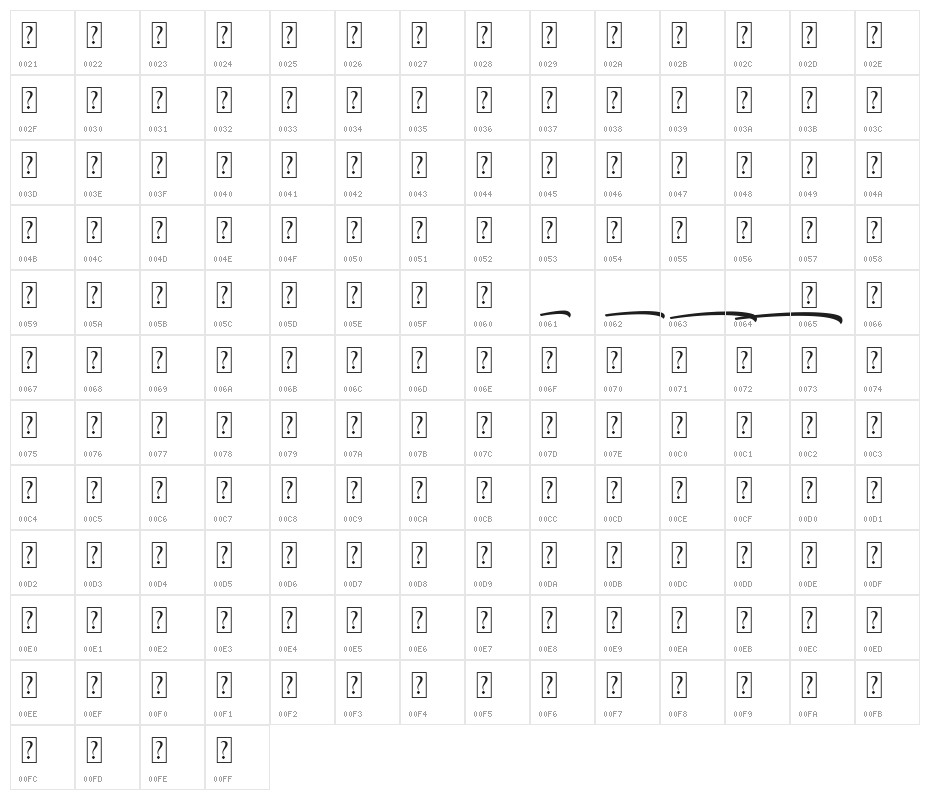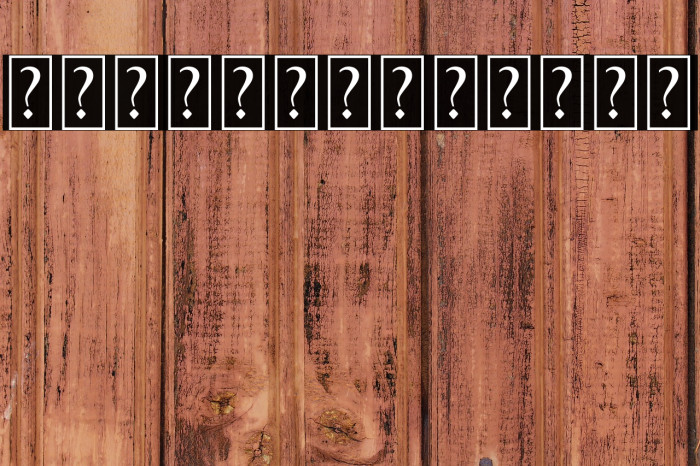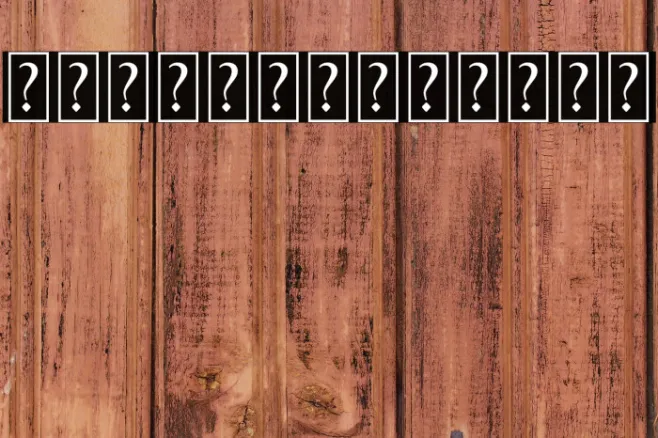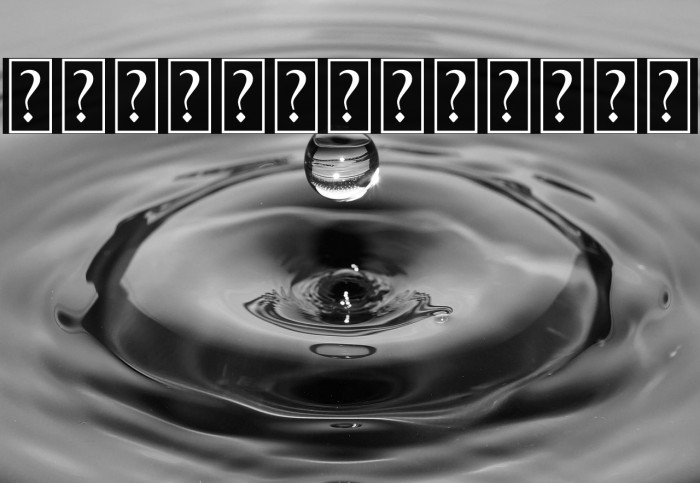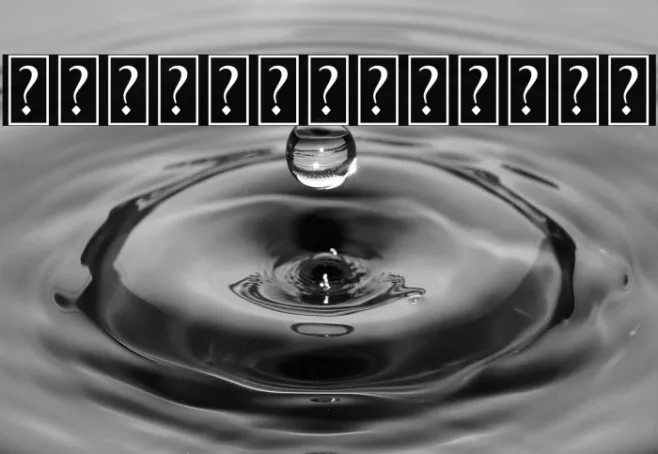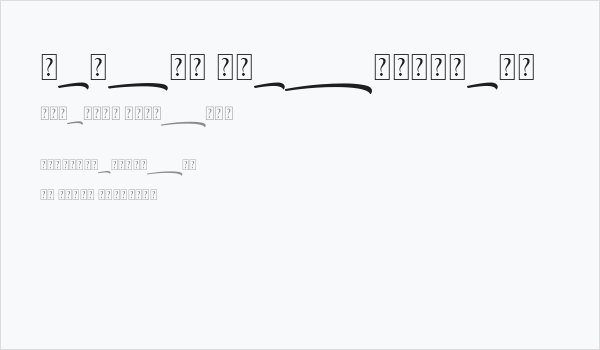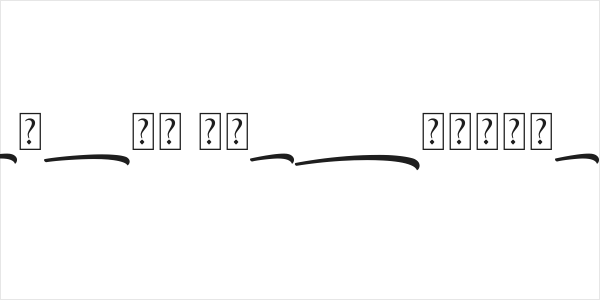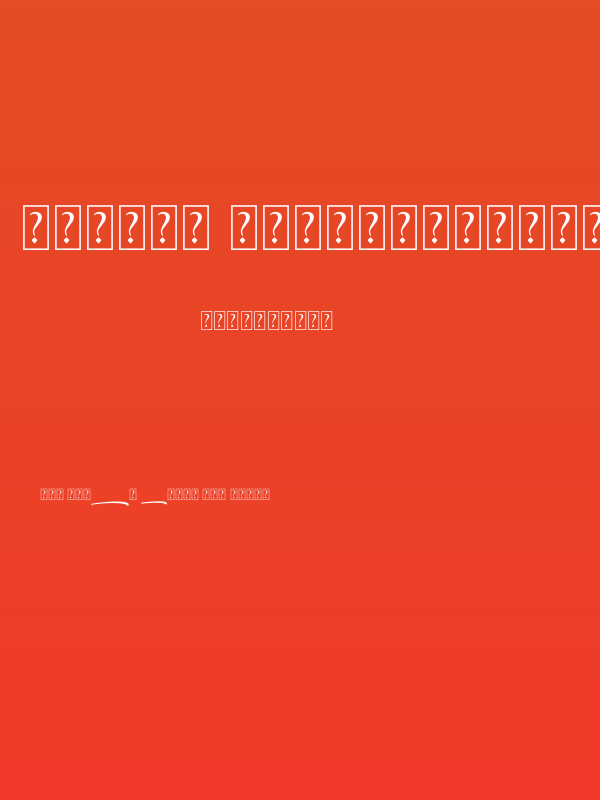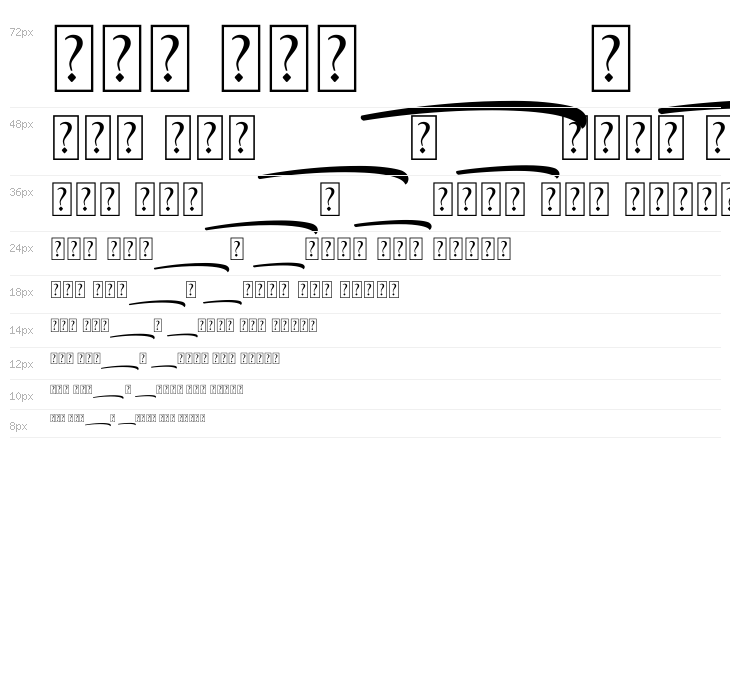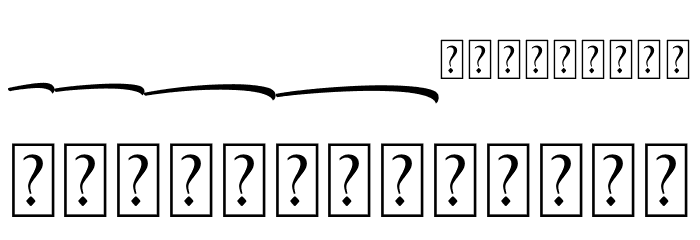
Samble Tracie_Swash Font
Samble Tracie_Swash Description
Elegant script font with prominent swash elements, featuring fluid, sweeping strokes and decorative flourishes on many characters. The letterforms are connected and expressive, with a calligraphic influence and high contrast between thick and thin lines.
Overall StyleDecorative, Elegant, Calligraphic
Use CaseLogos, Headlines, Invitations, Decorative text
Proposed ProjectsWedding invitations, greeting cards, branding, luxury packaging, event posters, decorative headlines.